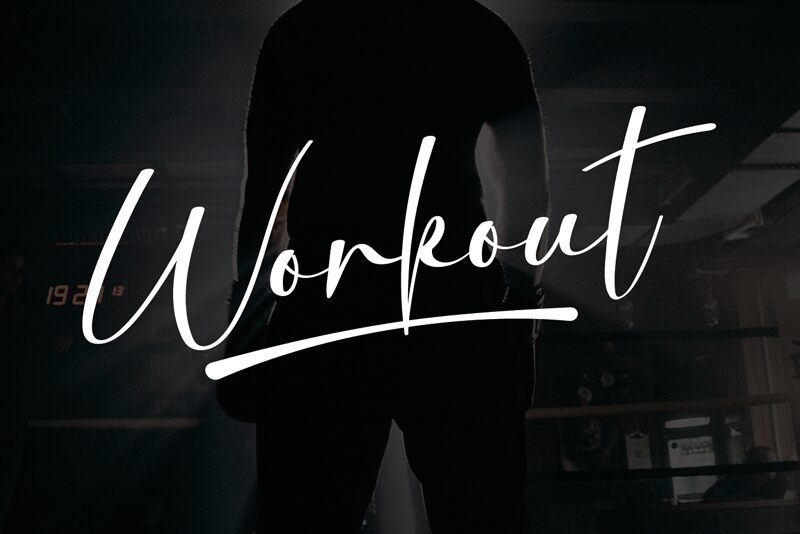
Workout
Workout, designed by Behind the Ink, is a light and charming handwritten font that exudes timeless appeal.
Its distinctive and beautiful touch adds life to any design, making it perfect for eye-catching logos, captivating branding, and inspirational quotes. Whether you're working on a fitness blog or a wellness magazine, this font effortlessly captures attention with its engaging style.
Let Workout help you create memorable and impactful projects that leave a lasting impression on your audience.